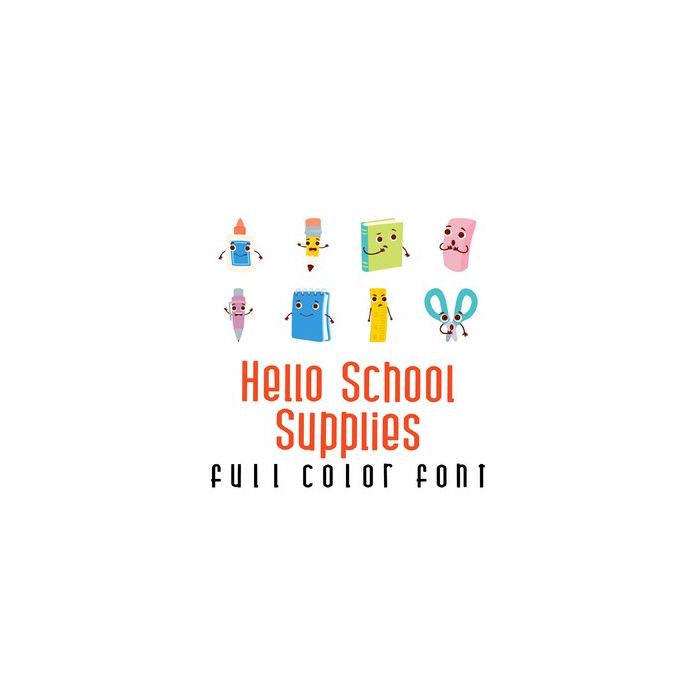
This adorable full color doodlebat font features cute kawaii style school school supplies. Perfect for classrooms, cards, crafts, gifts, decor, scrap book pages, planner stickers and more!